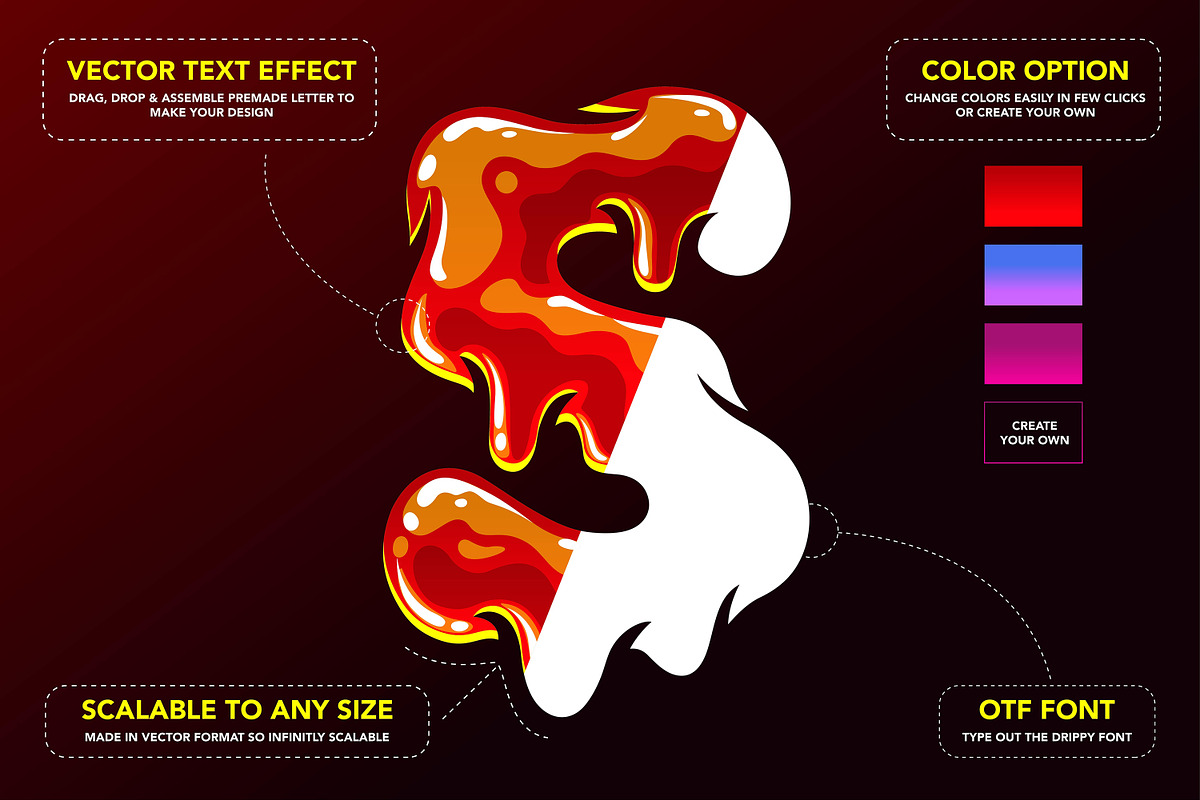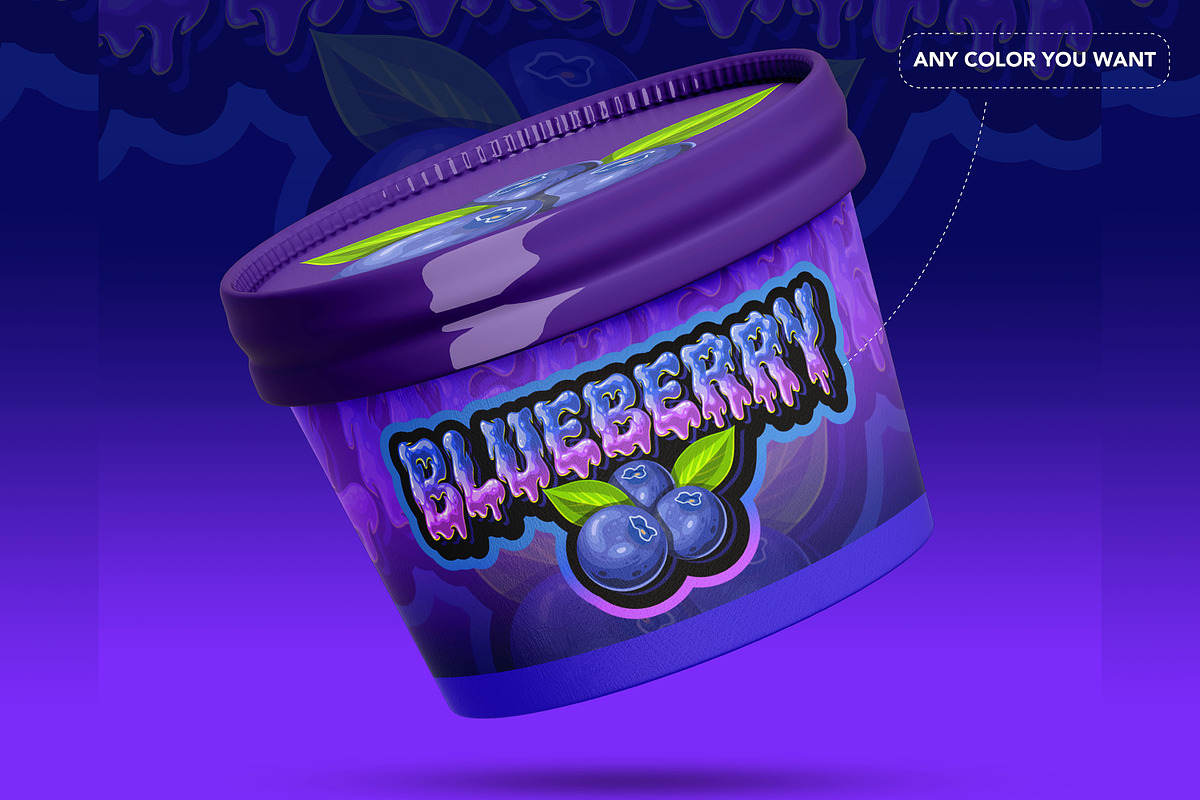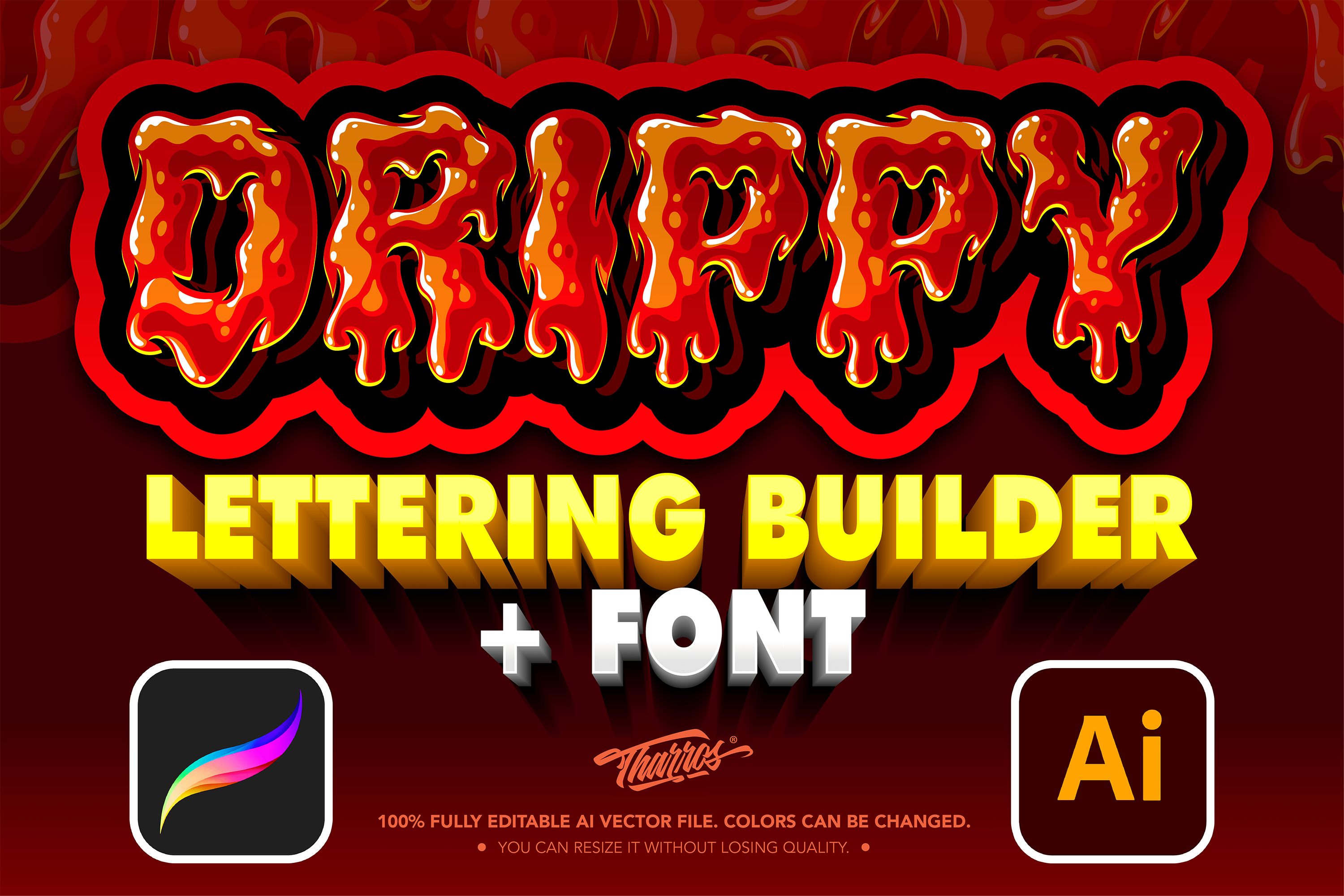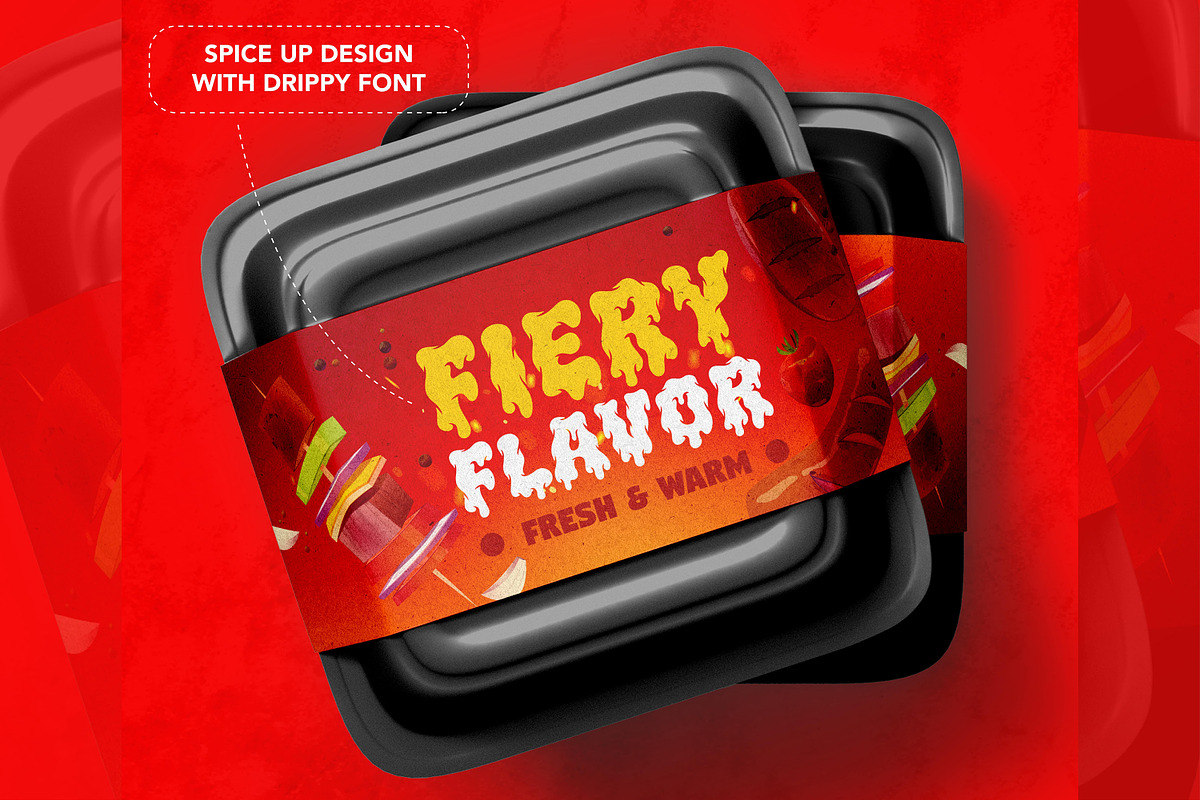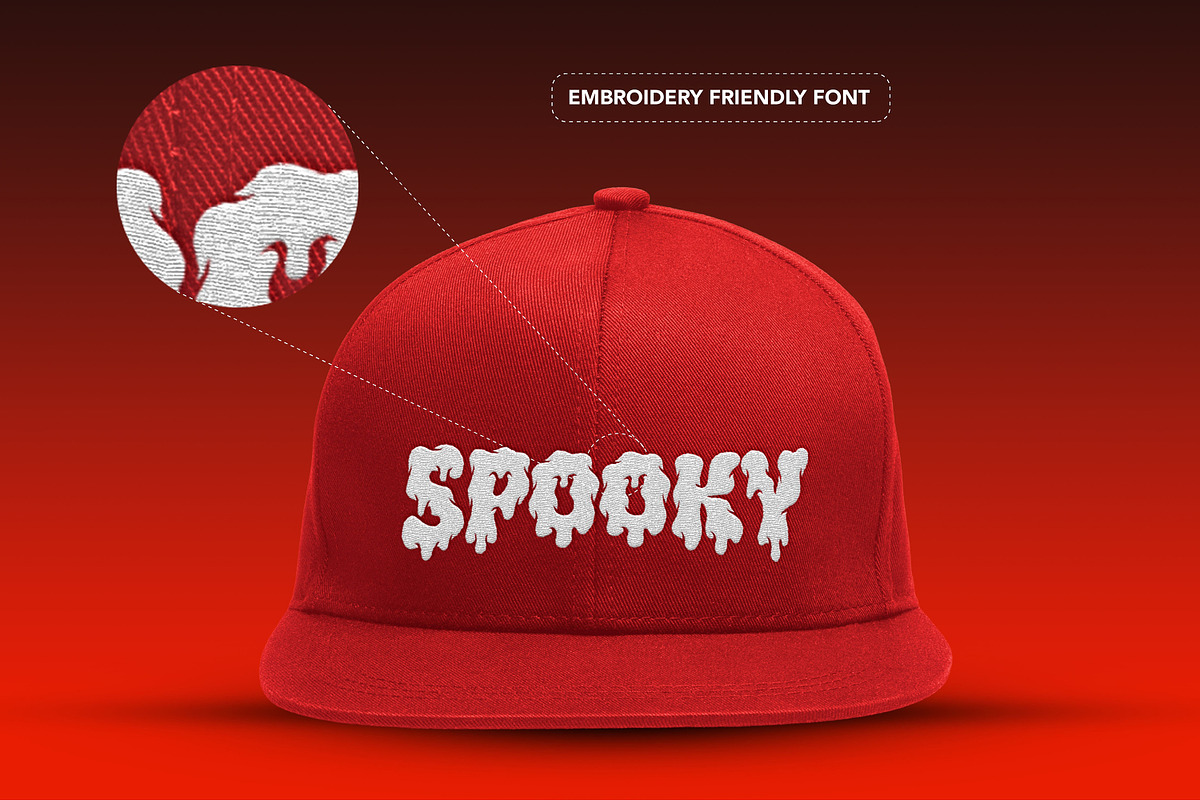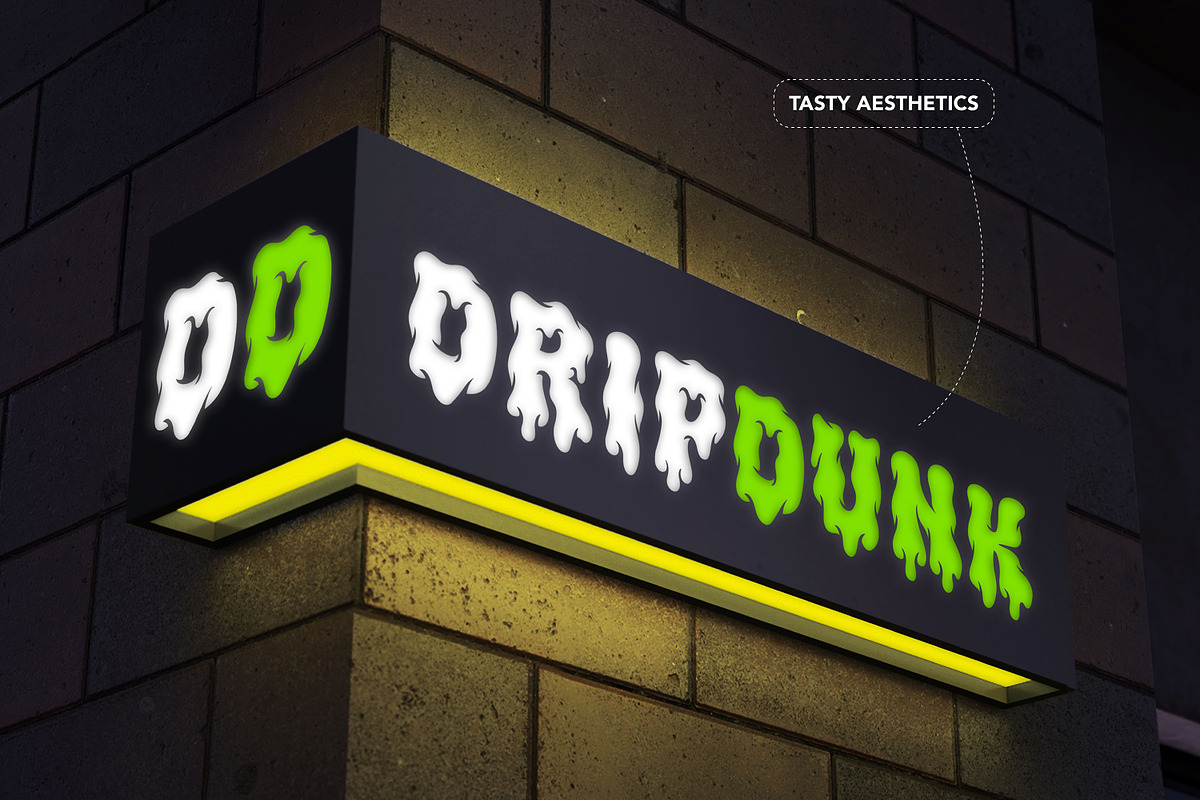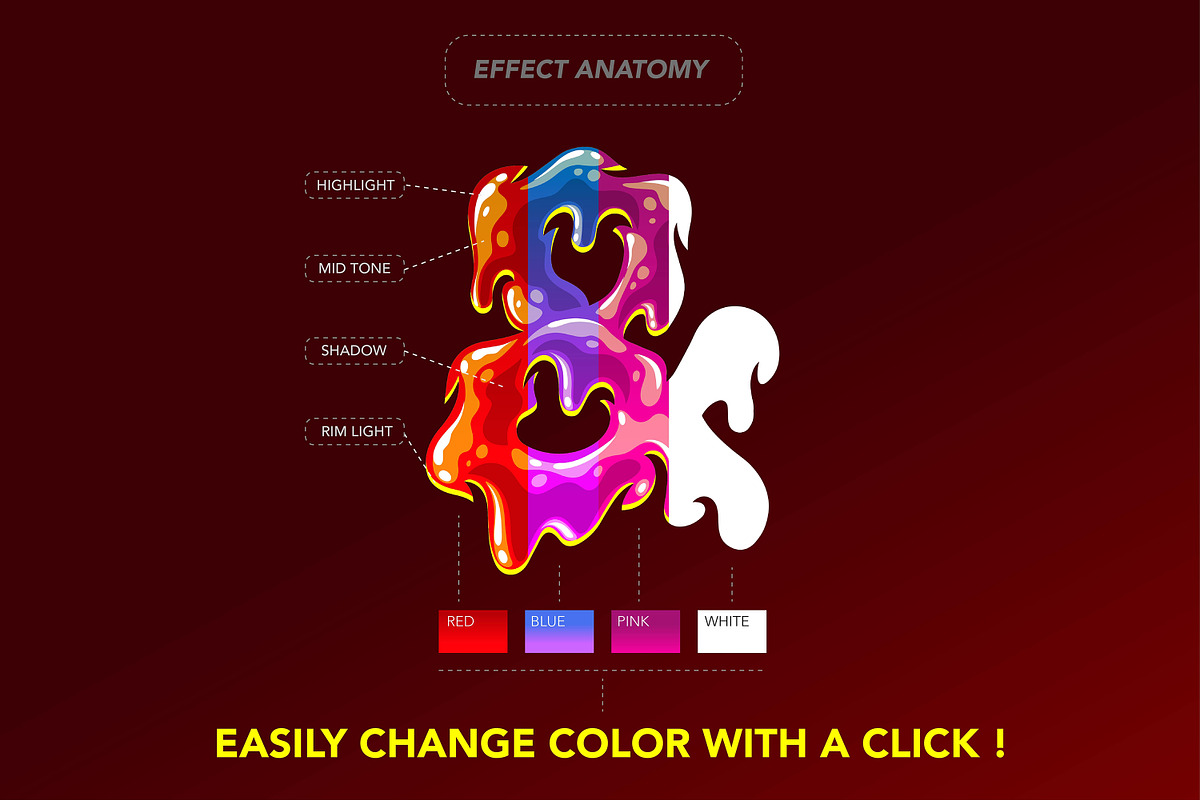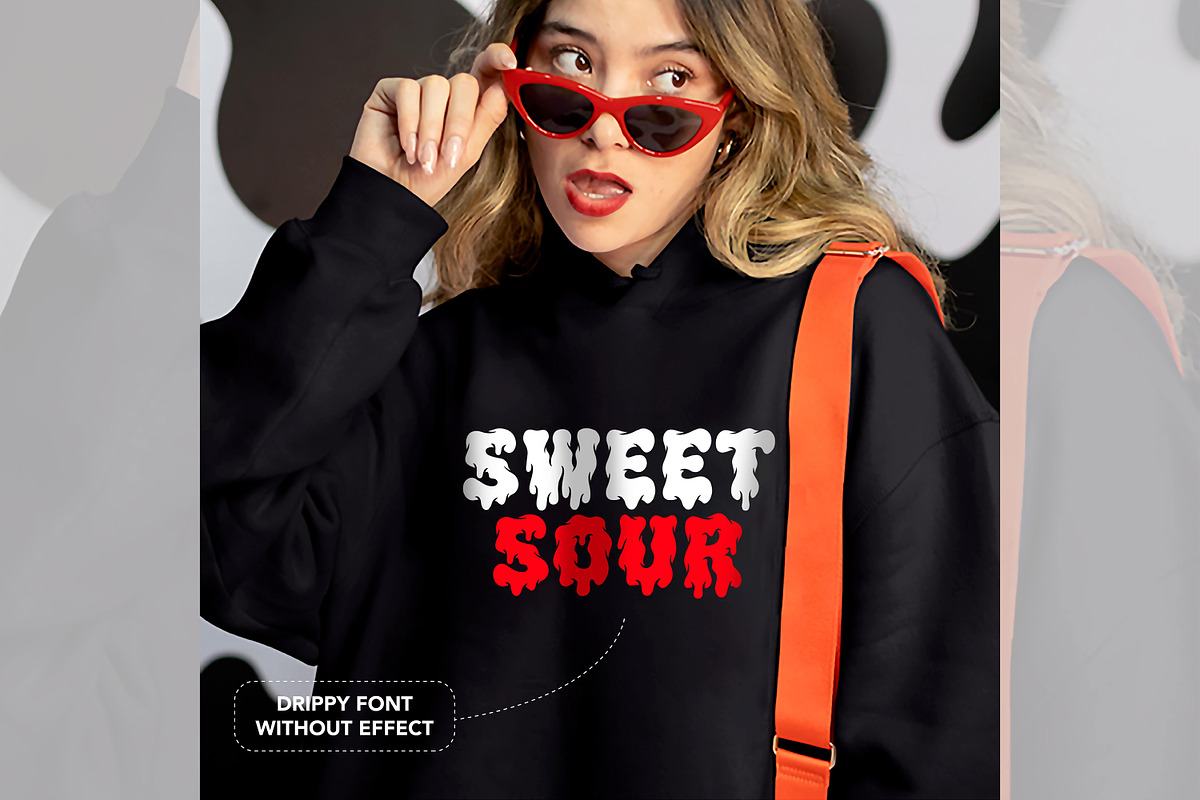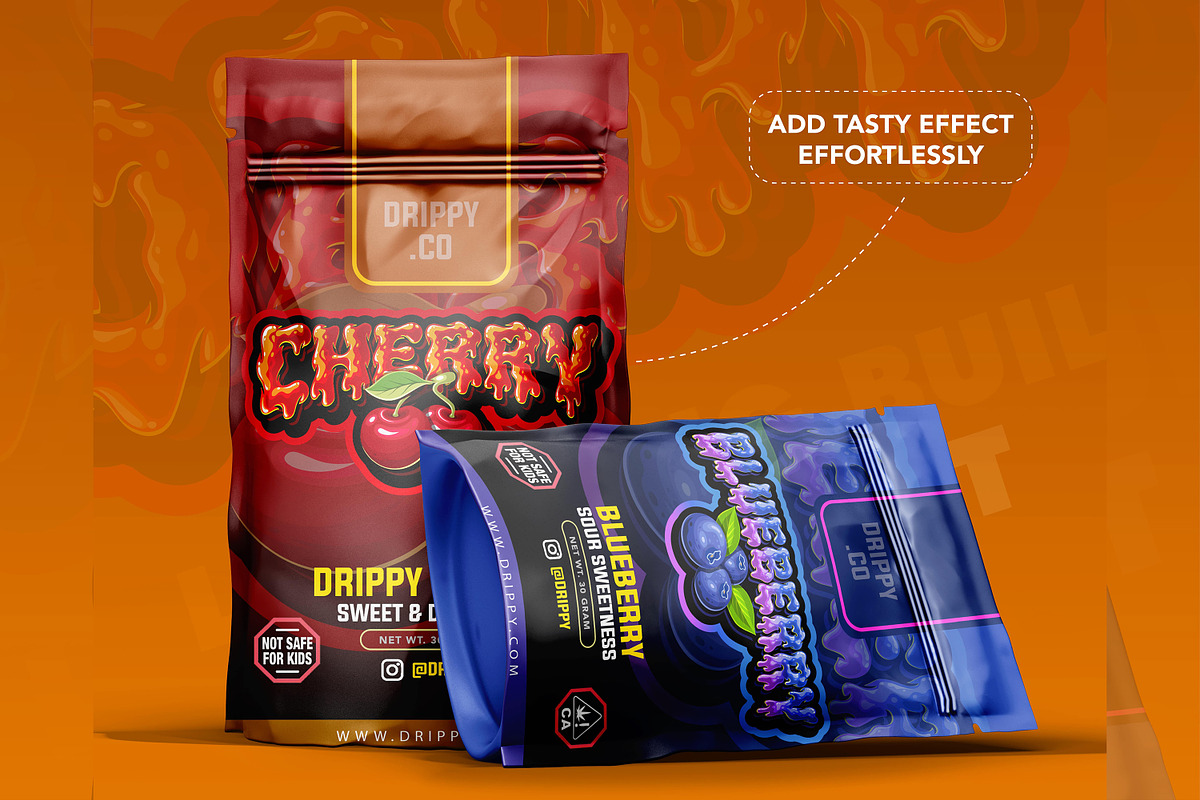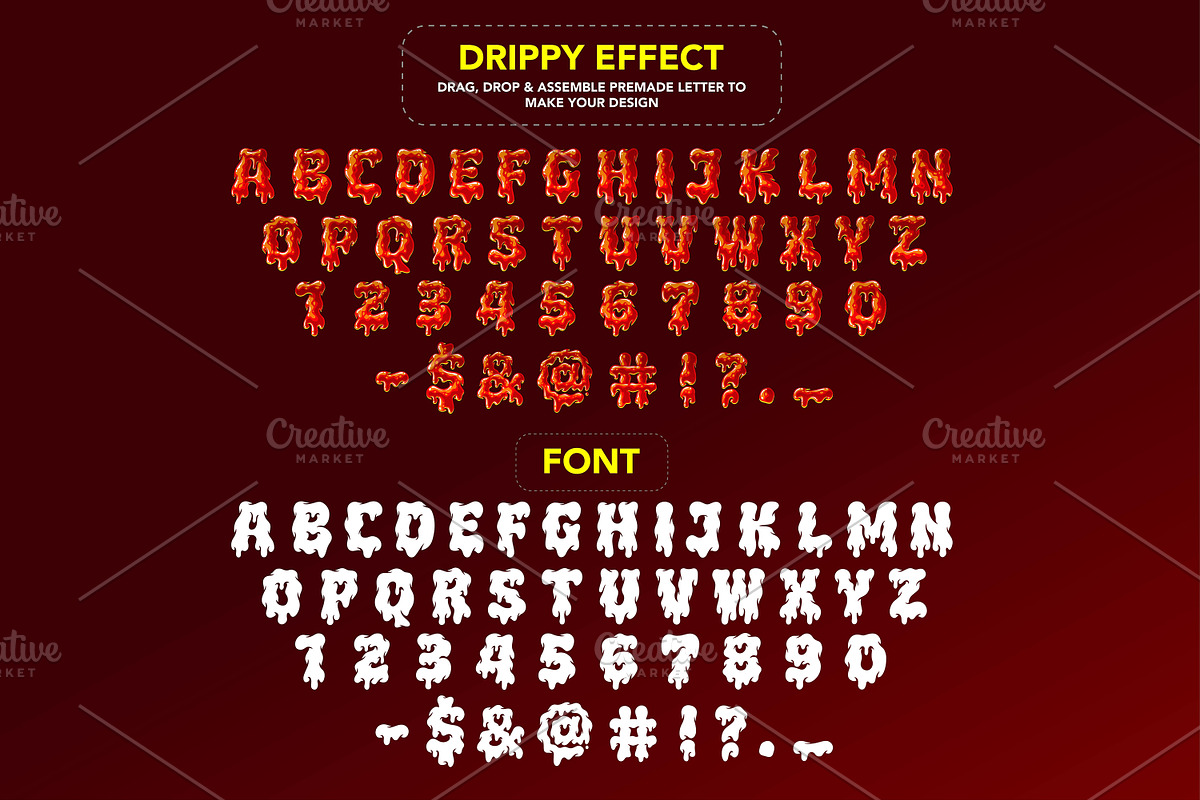
Drippy Lettering Builder + Font
You will get: Drippy font + a premade set of alphabet, numbers, and symbols in a drippy text effect that you can assemble and compose to make your designs. Everything is in vector format so you can change colors, edit layers & scale infinitely without losing quality. Editable on Procreate & Adobe Illustrator.
There are two versions of the drippy letter.